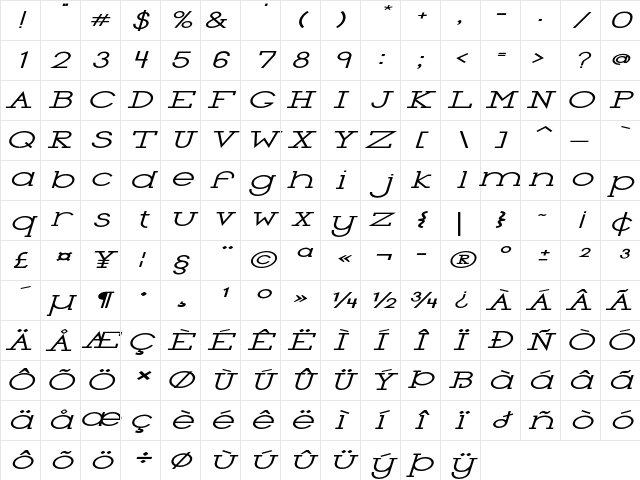
New York Print Extra-expanded Italic
Style: Extra-expanded Italic
New York Print Extra-expanded Italic
Design Context for New York Print
New York Print is a composed and adaptable typeface that performs quietly and consistently across a wide range of design contexts. The slanted form adds forward momentum and visual energy.